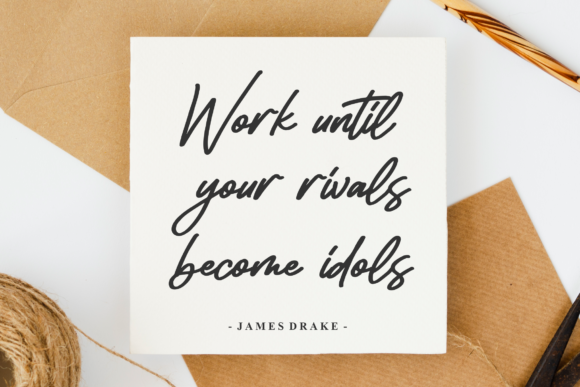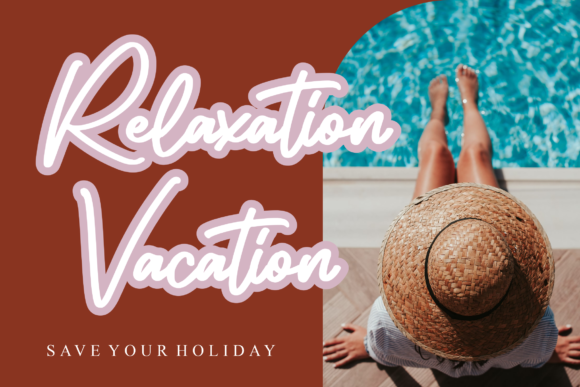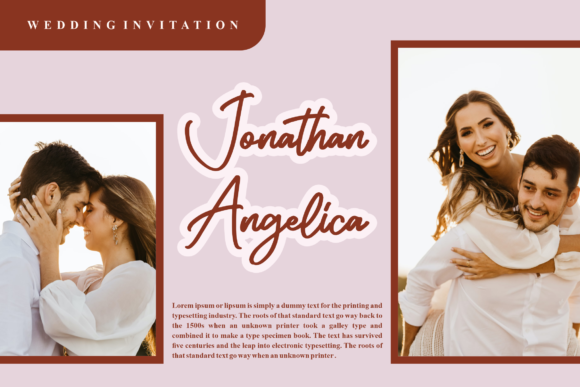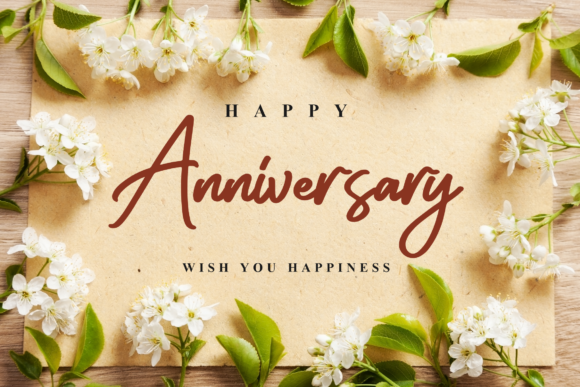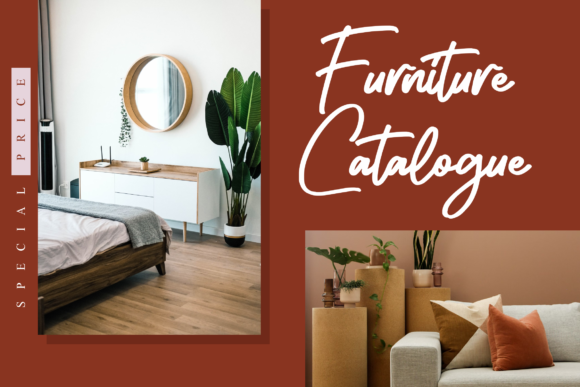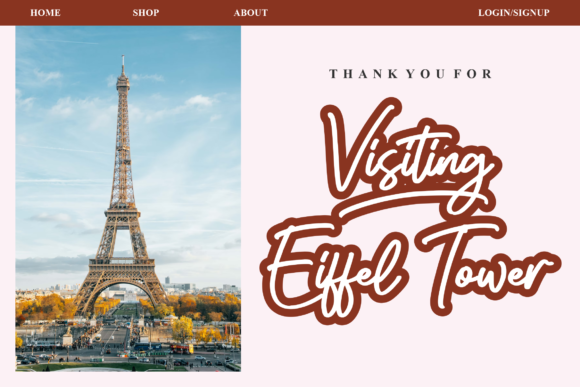
Introducing Greyalika Font: Elevate Your Designs with a Touch of Elegance
In the world of design, fonts play a crucial role in conveying the message and aesthetic of a project. For those seeking a font that exudes elegance, sophistication, and a touch of handmade charm, Greyalika Font is an exceptional choice. This versatile and stylish font is perfect for a wide range of design projects, from wedding invitations and greeting cards to logos and business cards.
The Unique Charm of Greyalika Font
Greyalika Font boasts a natural, stylish appearance that lends itself beautifully to any project requiring a handwritten feel. Its unique charm lies in its ability to add a personalized touch to designs, making it an ideal choice for crafters and designers looking to infuse their work with a sense of warmth and individuality. Whether you’re creating wedding invitations, thank you cards, or quotes, Greyalika Font ensures that your designs stand out with a distinctive elegance.
One of the key advantages of Greyalika Font is its versatility. It can be seamlessly integrated into various design projects, including:
- Wedding Invitations: Add a touch of romance and sophistication to your wedding invitations, making them truly unforgettable.
- Thank You Cards: Express gratitude with beautifully designed thank you cards that exude warmth and appreciation.
- Quotes: Give your quotes a stylish edge, making them perfect for sharing on social media or including in blogs and websites.
- Greeting Cards: Create stunning greeting cards for any occasion, from birthdays to holidays.
- Logos and Business Cards: Elevate your brand’s visual identity with a logo and business card design that stands out.
Greyalika Font is PUA (Private Use Area) encoded, which means that accessing its extensive range of glyphs and ligatures is incredibly straightforward. This feature allows designers to explore a wide array of creative possibilities, making it easier to customize and enhance their designs. With PUA encoding, you can easily access and use the font’s special characters, ensuring that your designs are not only beautiful but also highly personalized.
Why Choose Greyalika Font?
For designers and crafters looking for a font that combines elegance, versatility, and ease of use, Greyalika Font is an outstanding choice. Here are a few reasons why:
- Elegant and Sophisticated: Greyalika Font adds a touch of elegance and sophistication to any design project.
- Handwritten Feel: Its natural, handwritten appearance makes it perfect for projects requiring a personalized touch.
- Versatile: Suitable for a wide range of design projects, from wedding invitations to logos and business cards.
- PUA Encoded: Easy access to a wide range of glyphs and ligatures for enhanced customization.
Greyalika Font is a stylish, versatile, and elegant font that is sure to elevate your design projects. Its unique charm, combined with its ease of use and PUA encoding, makes it an excellent choice for designers and crafters looking to add a personalized touch to their work. Whether you’re creating wedding invitations, greeting cards, logos, or business cards, Greyalika Font is the perfect companion for any extraordinary project.